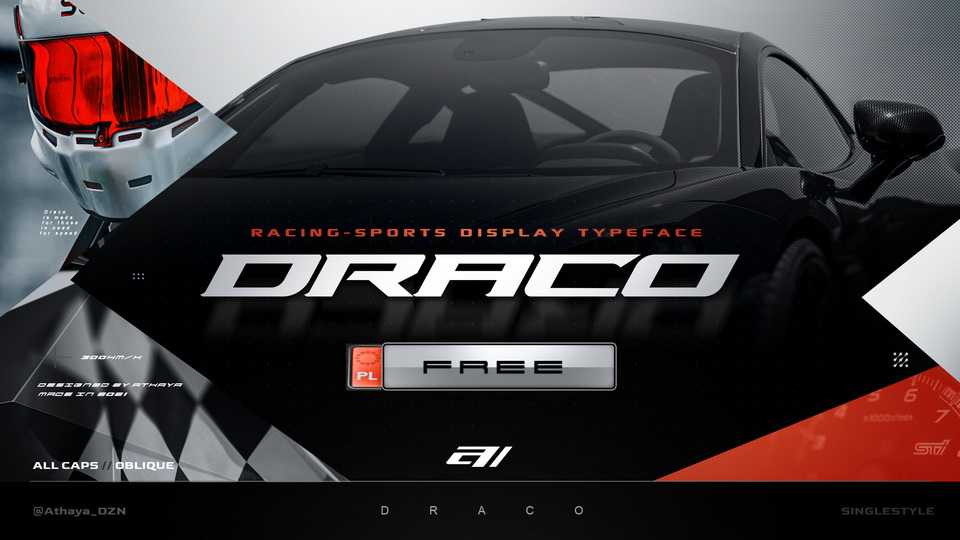
Download Draco font, a bold single styled racing sports typeface that has multiple edges and corners that adds to it’s uniqueness and modern feel. Even though Draco is made purely for speed, it can be used for a header, stream graphics designs as well.
Designer: Athaya